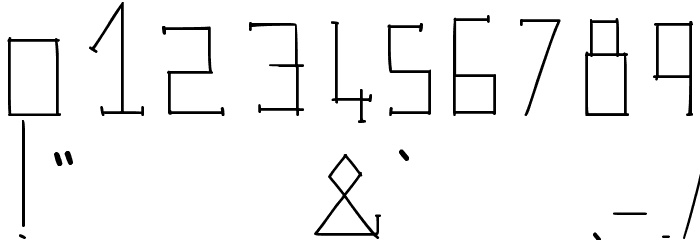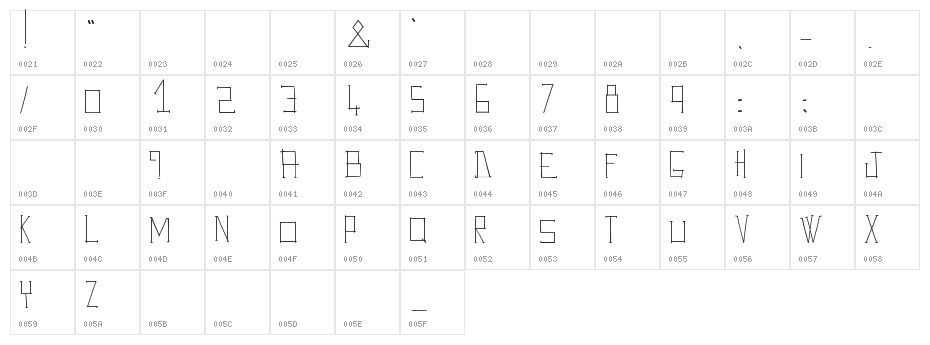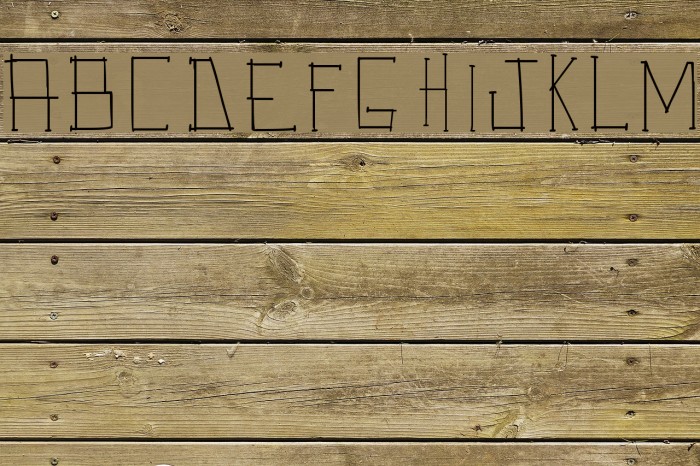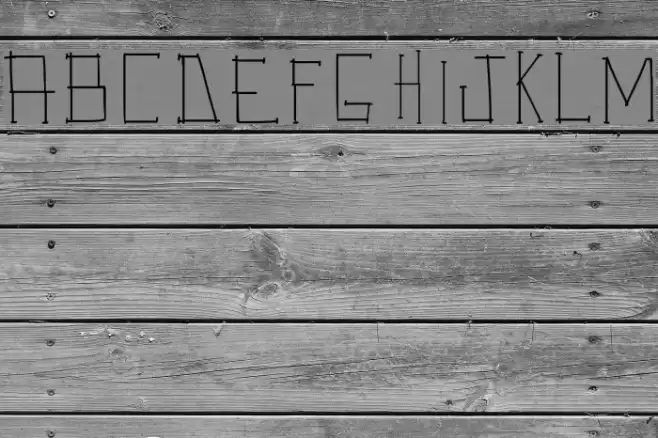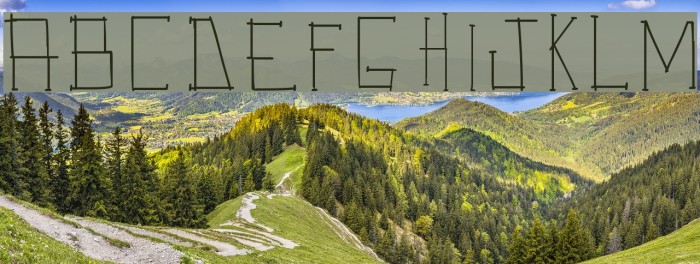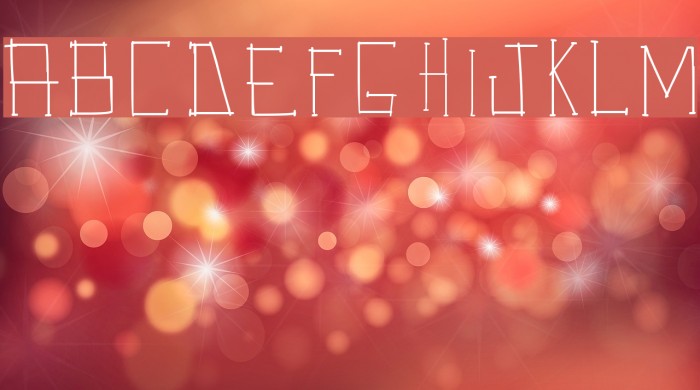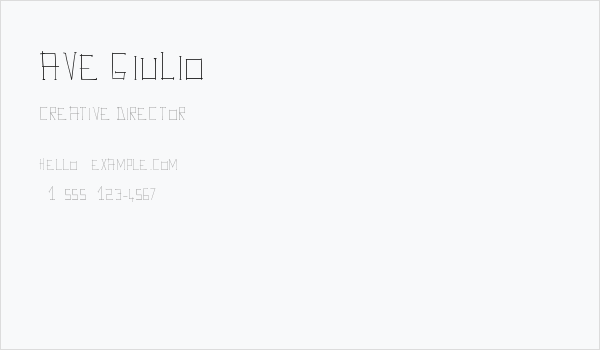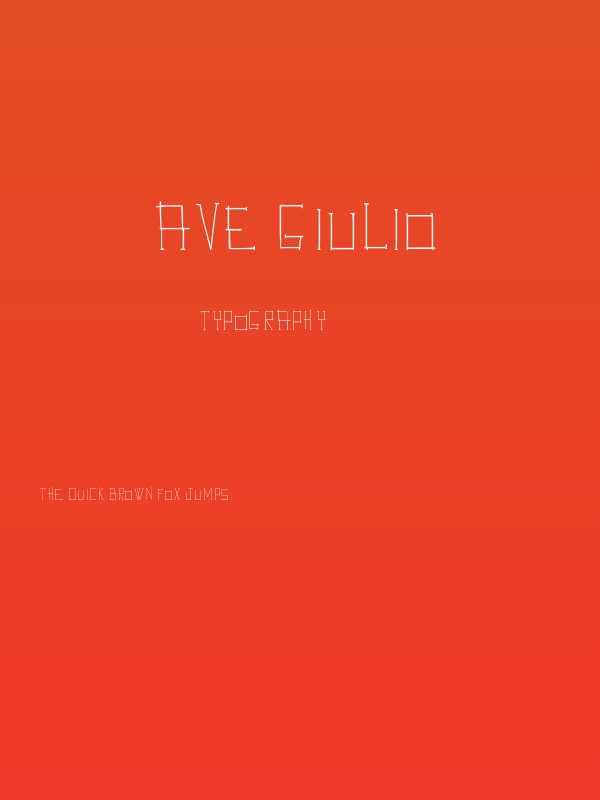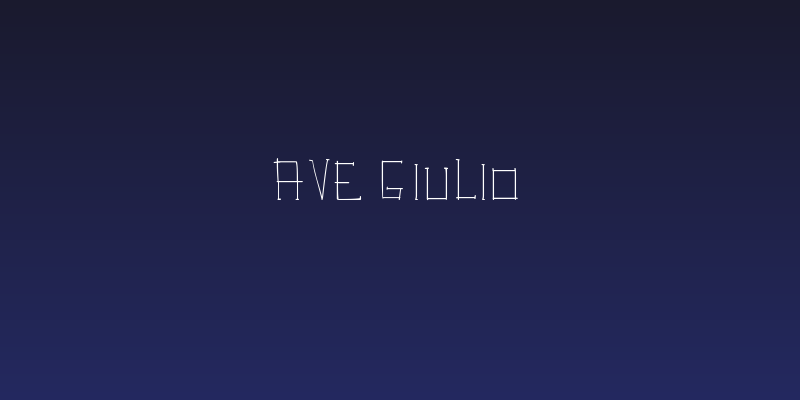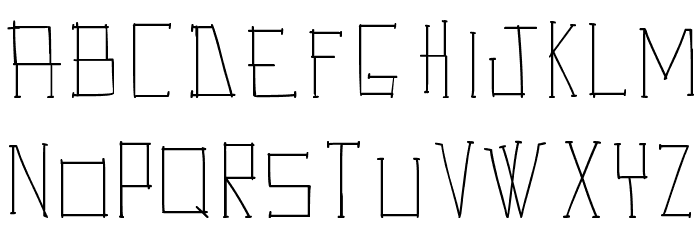
Ave Giulio Font
Ave Giulio Description
This font features a unique, geometric design with a modern and minimalist aesthetic. Each character is constructed with straight lines and sharp angles, giving it a technical and structured appearance. The uppercase and lowercase letters maintain a consistent height, contributing to a uniform look. The numerals and special characters follow the same design principles, ensuring cohesiveness across all glyphs. The font's distinctive style makes it suitable for projects that require a futuristic or avant-garde touch.
| Proposed Projects | Ideal for tech branding, modern art posters, architectural designs, and digital interfaces. |